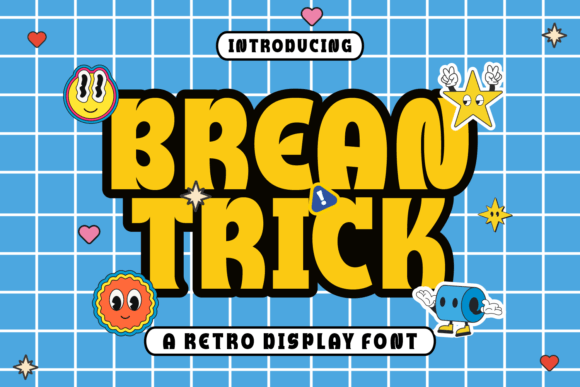
Introducing Brean Trick Font: The Ultimate Retro Display Font for Creative Designs
Are you tired of using the same old fonts for your design projects? Look no further! Brean Trick Font is here to revolutionize your typography designs with its cute, friendly, and playful retro-style charm. This thick and bold display font is perfect for crafters, designers, and anyone looking to add a touch of nostalgia to their creations.
What Makes Brean Trick Font So Special?
Brean Trick Font is a one-of-a-kind display font that boasts a unique retro aesthetic. Its thick and playful strokes evoke a sense of fun and friendliness, making it ideal for designs that require a personal touch. Whether you’re working on a logo, poster, or social media graphic, Brean Trick Font is sure to make your typography designs stand out from the crowd.
Endless Possibilities with Brean Trick Font
With Brean Trick Font, the creative possibilities are endless! You can use it to:
- Create eye-catching logos and branding materials for your business or personal projects
- Design stunning posters, flyers, and brochures that grab attention
- Develop unique social media graphics and posts that showcase your personality
- Make your craft projects, such as handmade cards and scrapbooking, more visually appealing
Who Can Benefit from Brean Trick Font?
Brean Trick Font is perfect for:
- Graphic designers looking for a unique display font to add to their collection
- Crafters and DIY enthusiasts seeking a fun and playful font for their handmade projects
- Small business owners and entrepreneurs who want to create a strong brand identity
- Social media influencers and content creators who want to make their posts more engaging